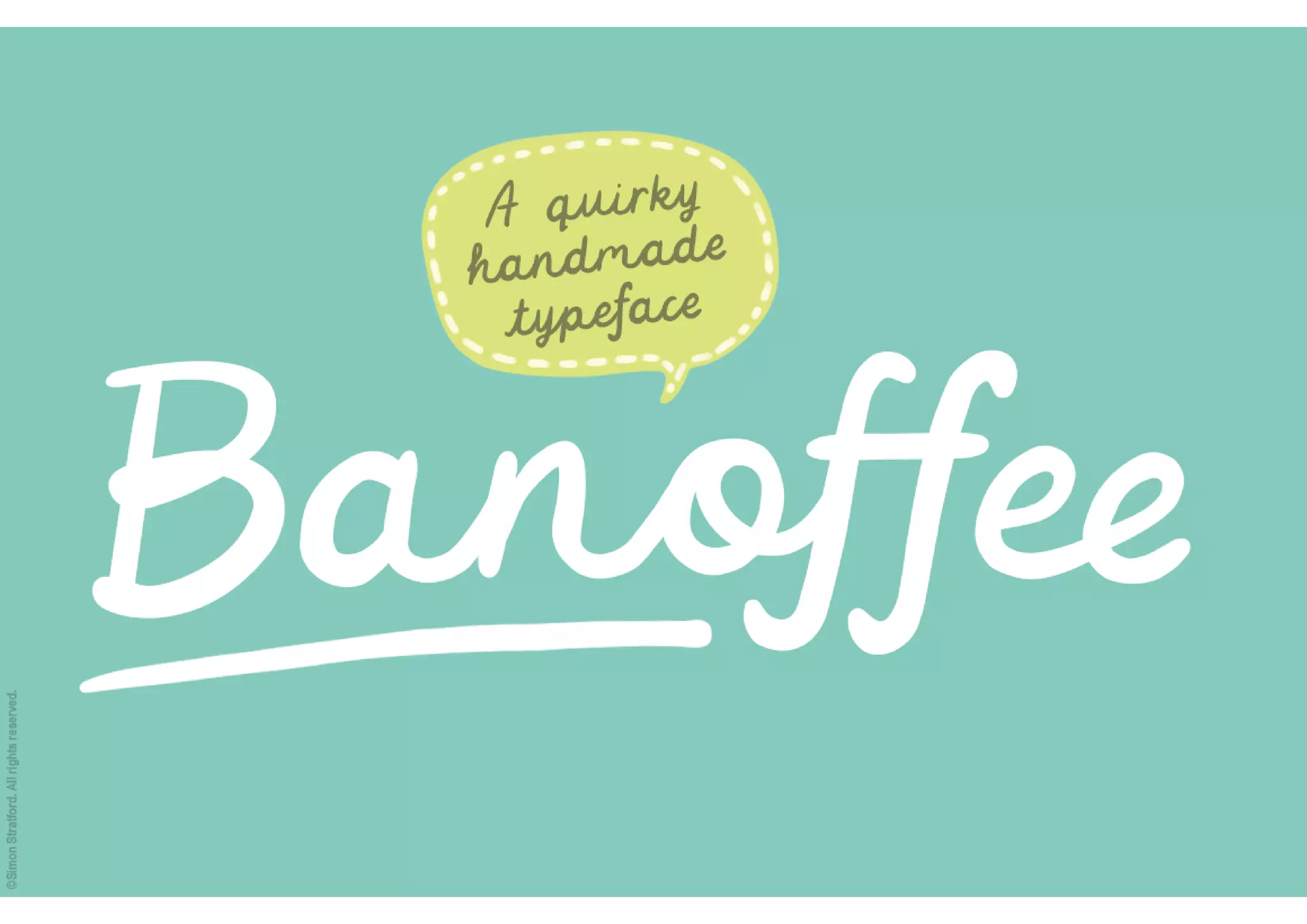
Introducing Banoffee my latest handmade script font. It's a playful, somewhat kooky typeface that tries its best to look like real handwriting. http://simonstratford.com/shop/banoffee-font/